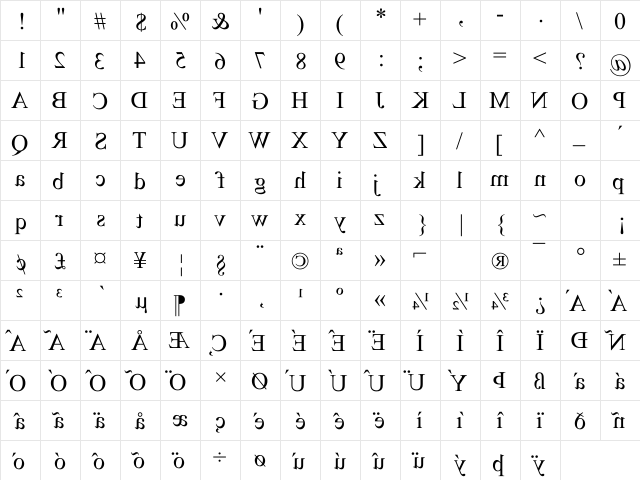
Times New Rewind Regular Font Preview
Times New Rewind Regular
Design Context for Times New Rewind Typeface
Times New Rewind offers clean, dependable letterforms without strong stylistic allegiance, making it a practical choice for designers who need flexibility.